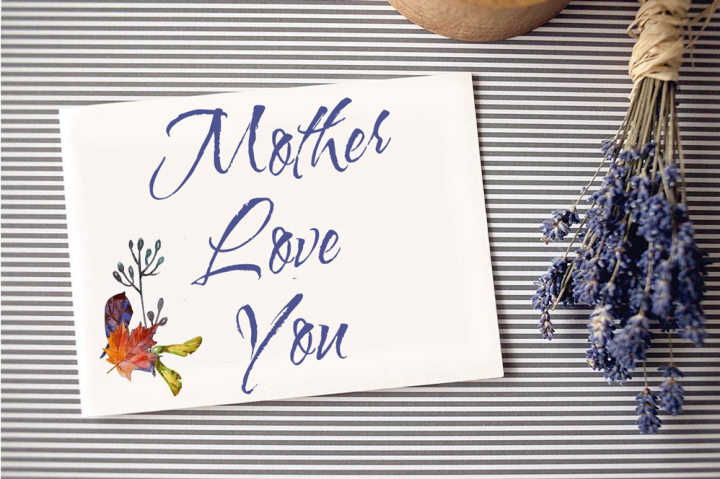
Lettering Script Font
Lettering Script is a modern, hand-painted brushed font family for projects needing that effortless, yet convincingly hand-painted feel. Can be used for various purposes.such as headings, signature, logos, wedding invitation, t-shirt, letterhead, signage, lable, news, posters, badges etc.